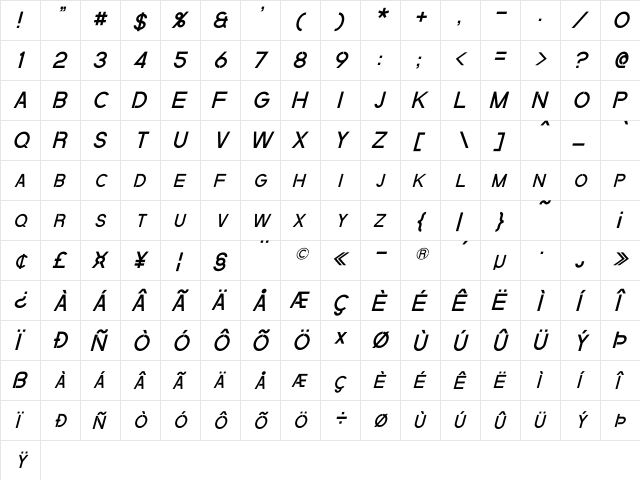
Quantum Italic
| Foundry | Neale Davidson |
| Designer | Neale Davidson |
Design Context for Quantum Typeface
Quantum offers clean, dependable letterforms without strong stylistic allegiance, making it a practical choice for designers who need flexibility. Its italic angle brings a sense of urgency and motion to the letterforms.
Pro Tip: Try Quantum for annotation and caption copy alongside an upright companion — the contrast in angle creates a dynamic but ordered typographic system.